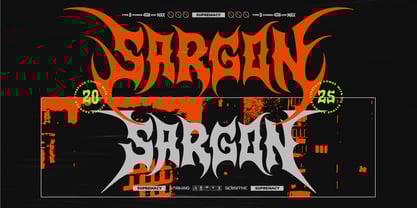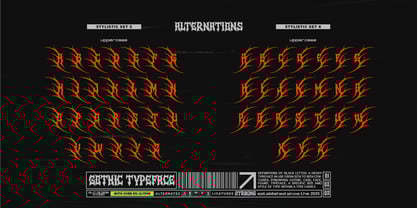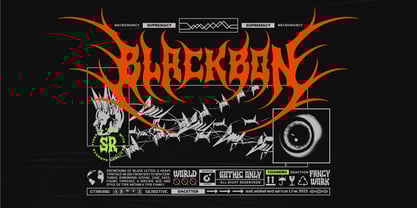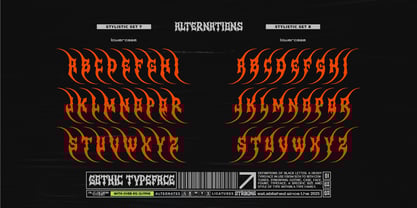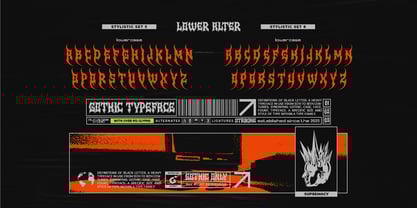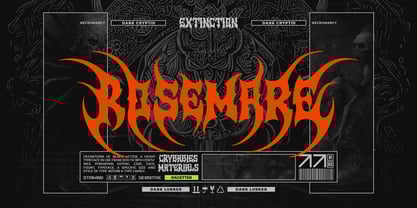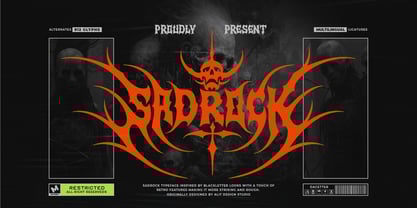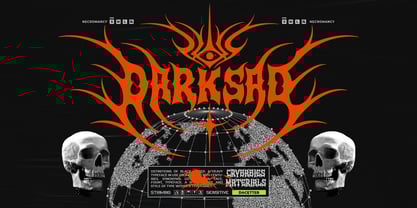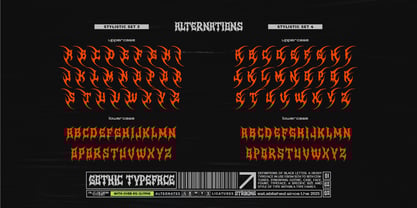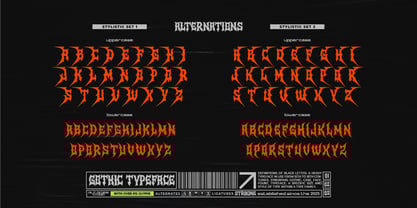
Sad Rock
Sad Rock Typeface – The Ultimate Fusion of Metal & Blackletter
Sad Rock Typeface is a bold, dark, and electrifying typeface that blends the raw energy of metal music aestheticswith the elegance of blackletter typography. Designed for those who crave intensity and power in their designs, Sad Rock boasts sharp, thorny details while maintaining strong readability.
This typeface captures the spirit of heavy metal, gothic, and extreme visual styles, making it ideal for band logos, album covers, posters, clothing brands, tattoos, and more. Whether you're crafting a brutal design for a death metal band or a fierce logo for a streetwear brand, Sad Rock delivers an uncompromising typographic presence.
🔥 Key Features of Sad Rock Typeface:
✔ 912 Glyphs – A massive collection of characters offering extensive design flexibility.
✔ Alternative Swashes – Extended, thorn-like strokes that add aggressive flair to the start and end of words.
✔ Ligatures & Swashes – Seamless connections between letters for a natural, striking appearance.
✔ Multilingual Support – Covers a wide range of languages, ensuring versatility across different regions.
🎸 Design Concept & Style
Sad Rock is crafted with a fat, strong letter body, making it bold and dominant while still maintaining a balanced, easy-to-read structure. Each letter is adorned with thorn-like spikes, giving it a fierce and untamed look, perfect for metal, gothic, and alternative themes.
The typeface is inspired by the brutal energy of metal band logos, retro gothic influences, and a touch of modern typography. It is designed to command attention and exude strength and aggression, making it the perfect choice for:
• Metal & Rock Band Logos
• Album Covers & Music Merchandise
• Extreme Sports & Streetwear Branding
• Horror & Gothic-Themed Designs
• Tattoo & Dark Art Projects
• Heavy Advertising & Bold Headlines
💀 Why Choose Sad Rock?
✅ Unique & Distinctive – Unlike generic gothic fonts, Sad Rock brings a fresh and striking personality.
✅ Highly Customizable – With alternate characters, swashes, and ligatures, you can create endless typographic variations.
✅ Perfect Balance of Aggression & Legibility – It looks wild yet remains readable, making it ideal for branding and promotional use.
✅ Supports Global Audiences – Multilingual support ensures that designers worldwide can use it without limitations.